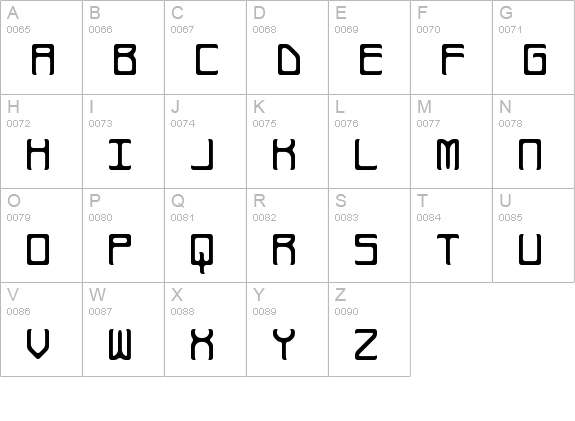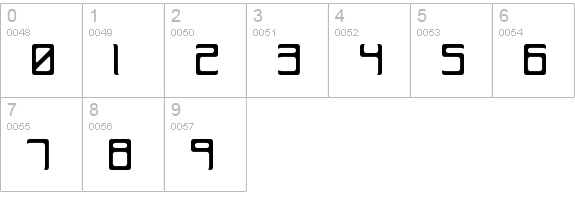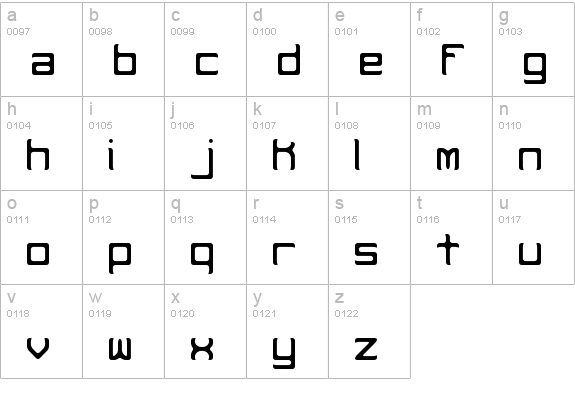
Rehearsal Curve BRK Font Details
Rehearsal Curve BRK font is a stunning display font that will add a touch of elegance and sophistication to any project. With its beautiful curves and intricate details, this font is perfect for creating eye-catching headlines, logos, and branding materials. The Rehearsal Curve BRK font is not only visually appealing but also highly versatile. It can be used for a wide range of design projects, from wedding invitations and greeting cards to posters and packaging. Its unique style will instantly grab the attention of viewers and make your message stand out from the crowd. One of the best things about the Rehearsal Curve BRK font is that it is available for free download at FontsMarket.com. This means that you can easily access and use this amazing font without any cost. Whether you are a professional designer or a hobbyist, this font is a valuable addition to your collection. Downloading the Rehearsal Curve BRK font from FontsMarket.com is quick and easy. Simply visit the website, search for the font, and click on the download button. Once you have the font file, you can install it on your computer and start using it in your design projects right away. Don't miss out on the opportunity to enhance your designs with the Rehearsal Curve BRK font. Download it for free today at FontsMarket.com and unleash your creativity with this stunning and versatile typeface.